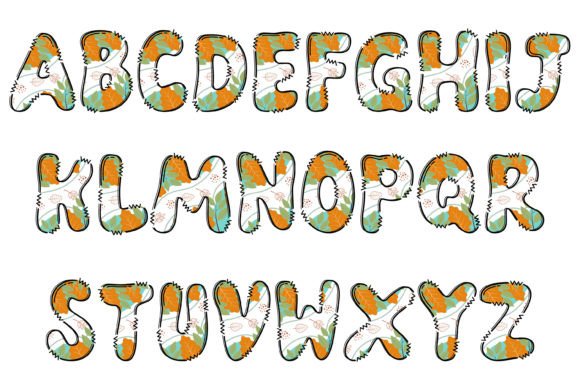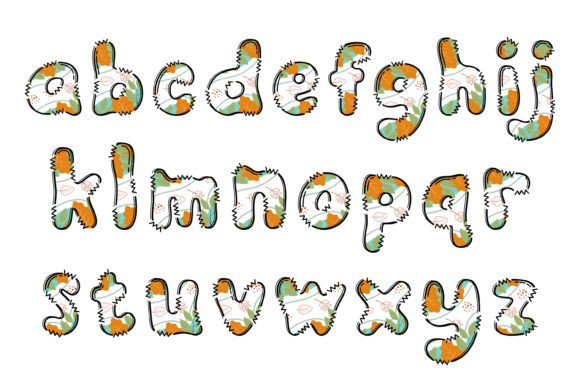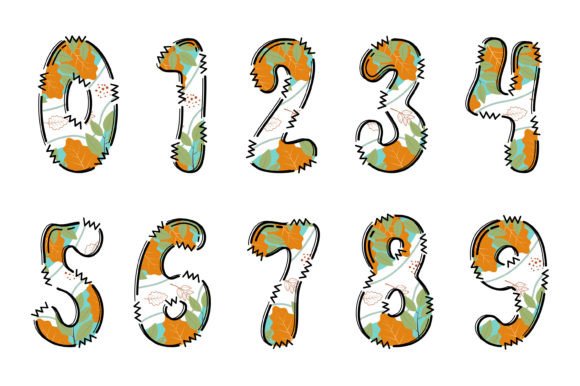
Introduction to Nature Leaf Font
Have you ever been on a hike and stumbled upon a hidden clearing, surrounded by lush greenery and vibrant wildflowers? That’s the kind of magic you can bring to your creative projects with the Nature Leaf Font. This enchanting font is designed to evoke a sense of whimsy and wonder, perfect for designs that aim to delight and engage young audiences.
As a designer, you know that the right font can make all the difference in a project’s success. The Nature Leaf Font is a valuable design resource that can add a touch of high-quality whimsy to your work. Whether you’re creating a children’s book, a poster, or a greeting card, this font is sure to bring a smile to your customers’ faces.
Key Features of Nature Leaf Font
- Unique, hand-drawn design with intricate details, perfect for creative projects.
- Perfect for use in creative projects, such as logos, branding, packaging, and editorial designs, where a natural and earthy feel is desired.
Honest Review: Nature Leaf Font
I recently stumbled upon the Nature Leaf Font while searching for a free download to use in a creative project. The font has a unique, hand-drawn design that immediately caught my attention.
- The font’s high quality is evident in its crisp lines and detailed illustrations of leaves.
- The Nature Leaf Font is perfect for projects that require a natural, earthy feel.
- It’s a great resource for designers who want to add a touch of whimsy to their designs.
Overall, I’m impressed with the Nature Leaf Font’s unique design and high quality. While it may have some limitations, it’s a great resource for designers who want to add a touch of nature to their creative projects.
Tips for Getting the Most Out of the Nature Leaf Font
To get the most out of the Nature Leaf Font, try using it in combination with other design elements, such as leaves and flowers, to create a cohesive and natural look. You can also experiment with different font sizes and colors to create a unique and eye-catching design.
The Nature Leaf Font is perfect for a variety of creative projects, including:
- Business cards and branding materials
- Printable art and wall decor
- Wedding and event decor